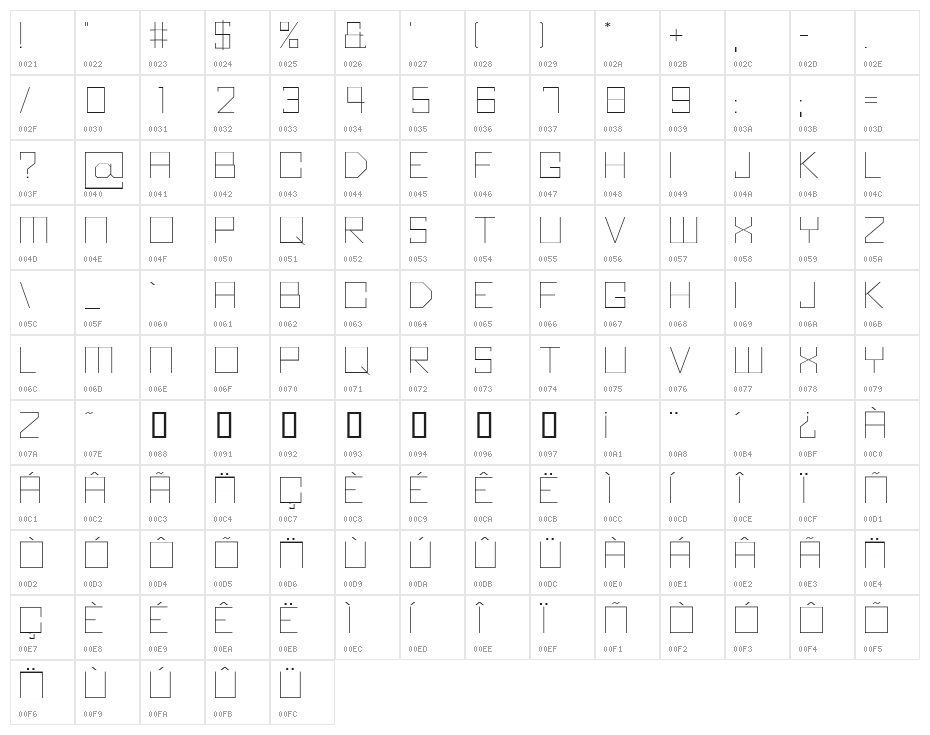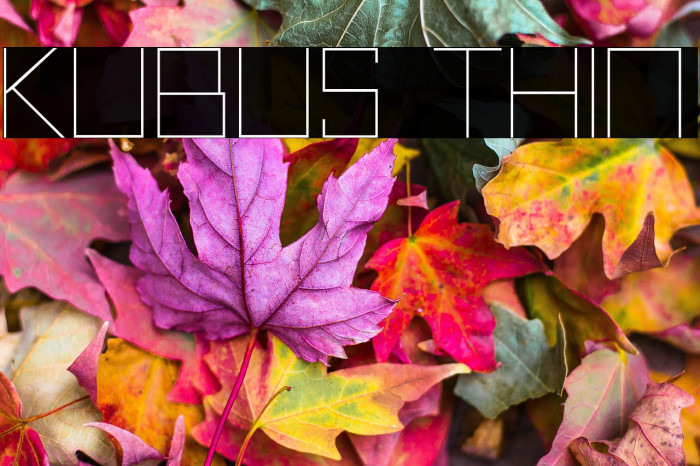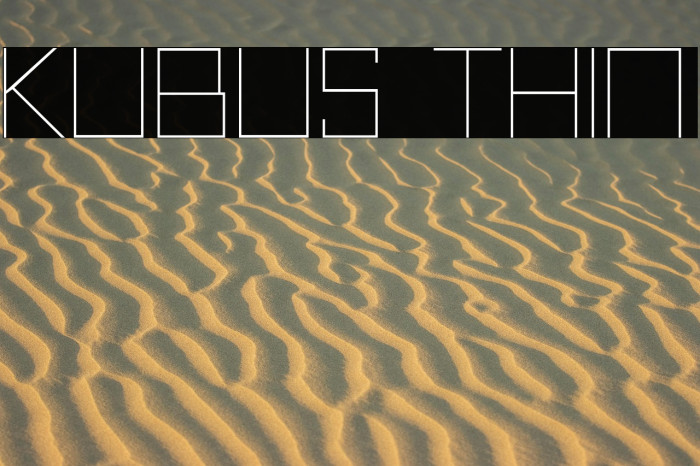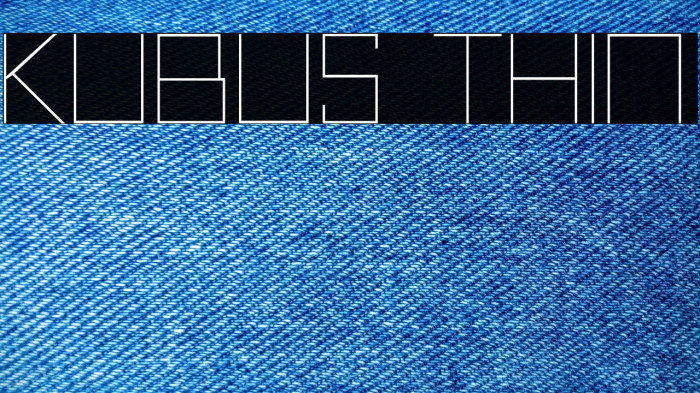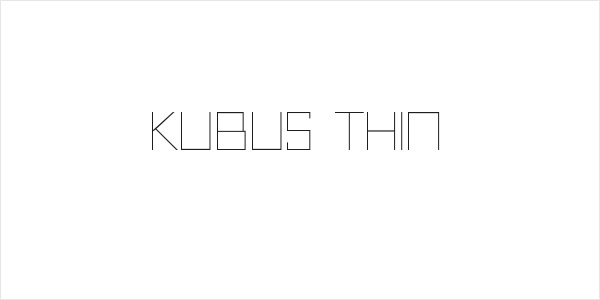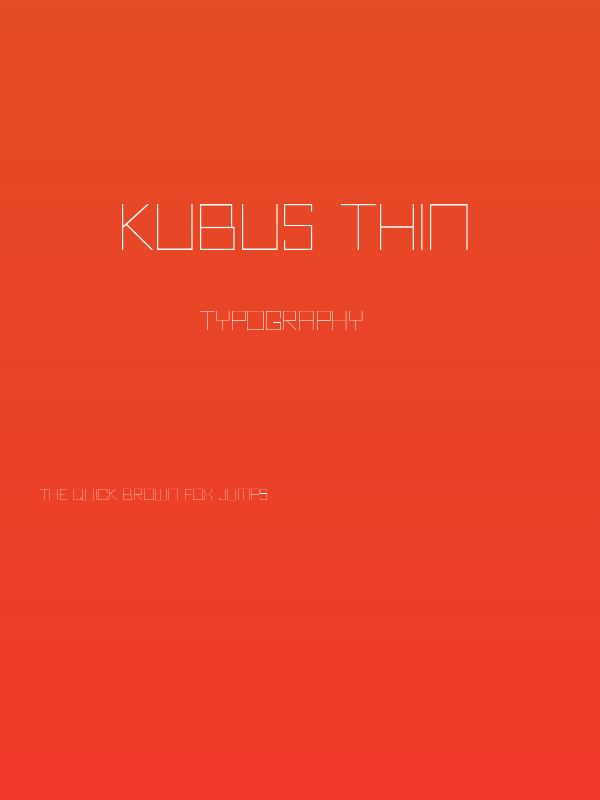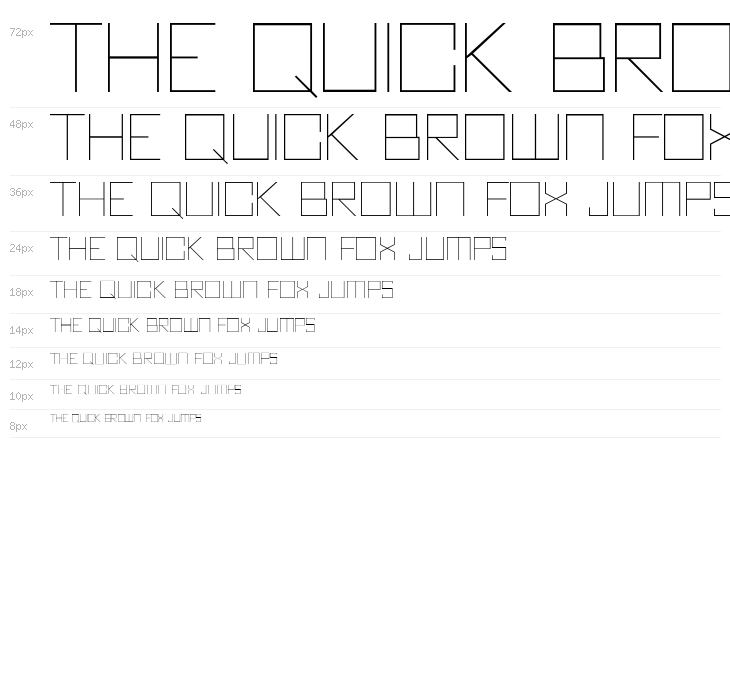
Kubus Thin Font
Kubus Thin Description
This font features a geometric and minimalist design, characterized by its thin, linear strokes and angular shapes. The letters are constructed with straight lines and sharp angles, giving it a modern and futuristic appearance. The uniformity in stroke width across all characters contributes to a clean and precise look. Its design is reminiscent of architectural blueprints or technical drawings, making it suitable for projects that require a sleek and contemporary aesthetic. The font maintains a consistent height and width for each character, ensuring a balanced and harmonious appearance.